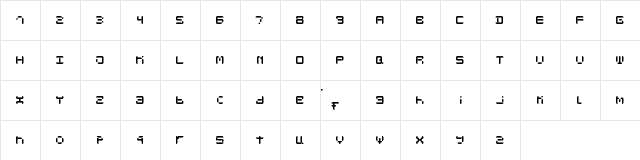
rounded future Regular
Design Context for rounded future Typeface
rounded future channels digital-age aesthetics through its sharp, structured letterforms — ideal for brands that want to signal innovation.